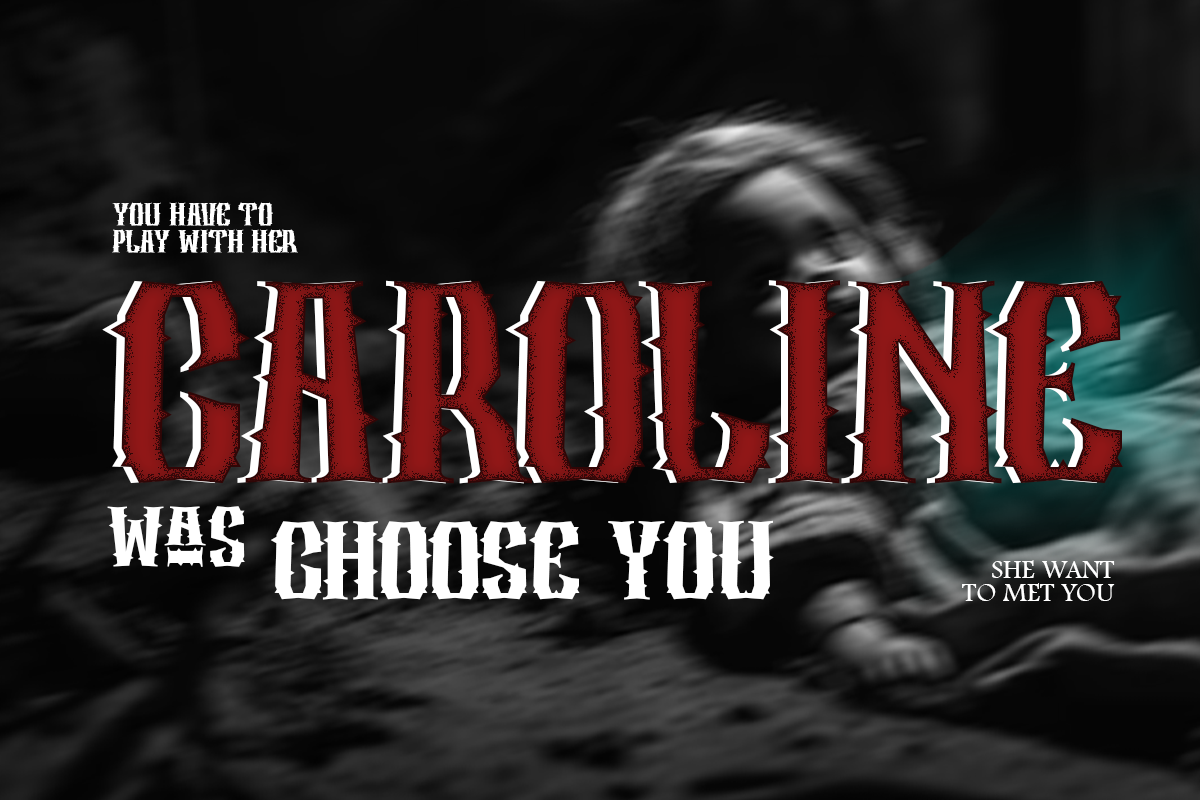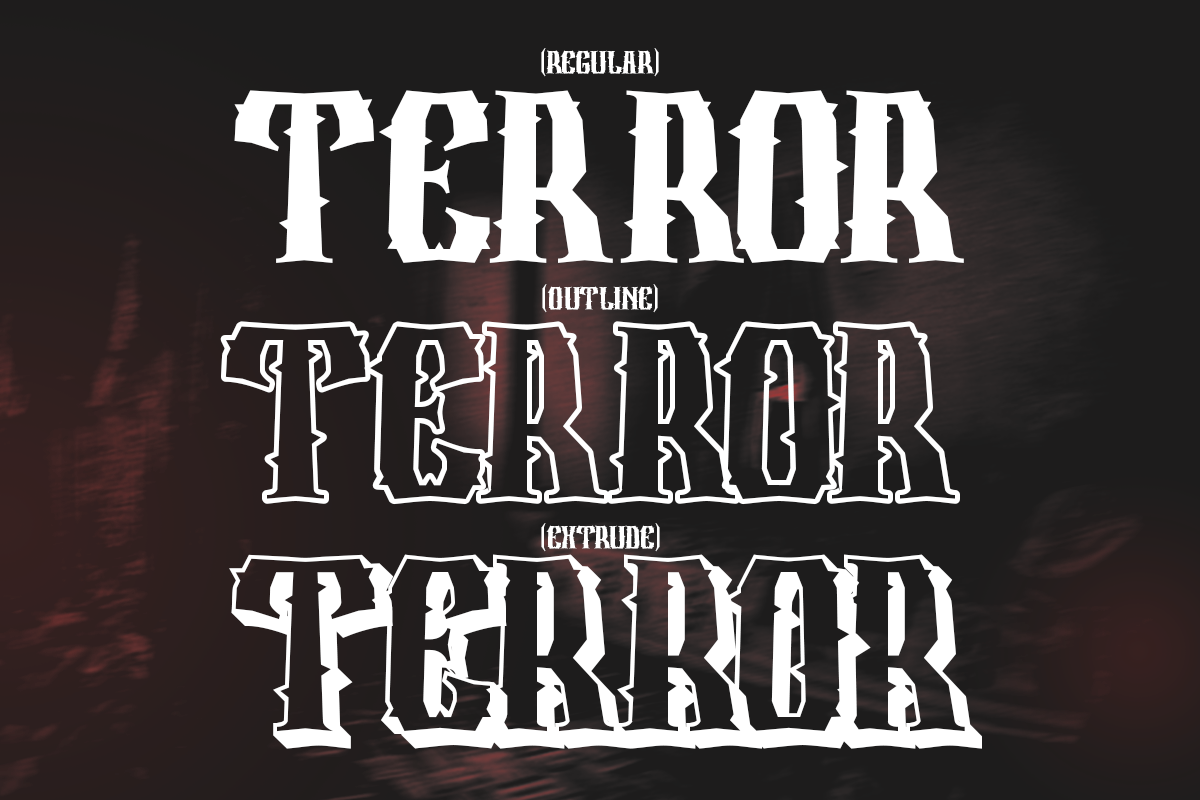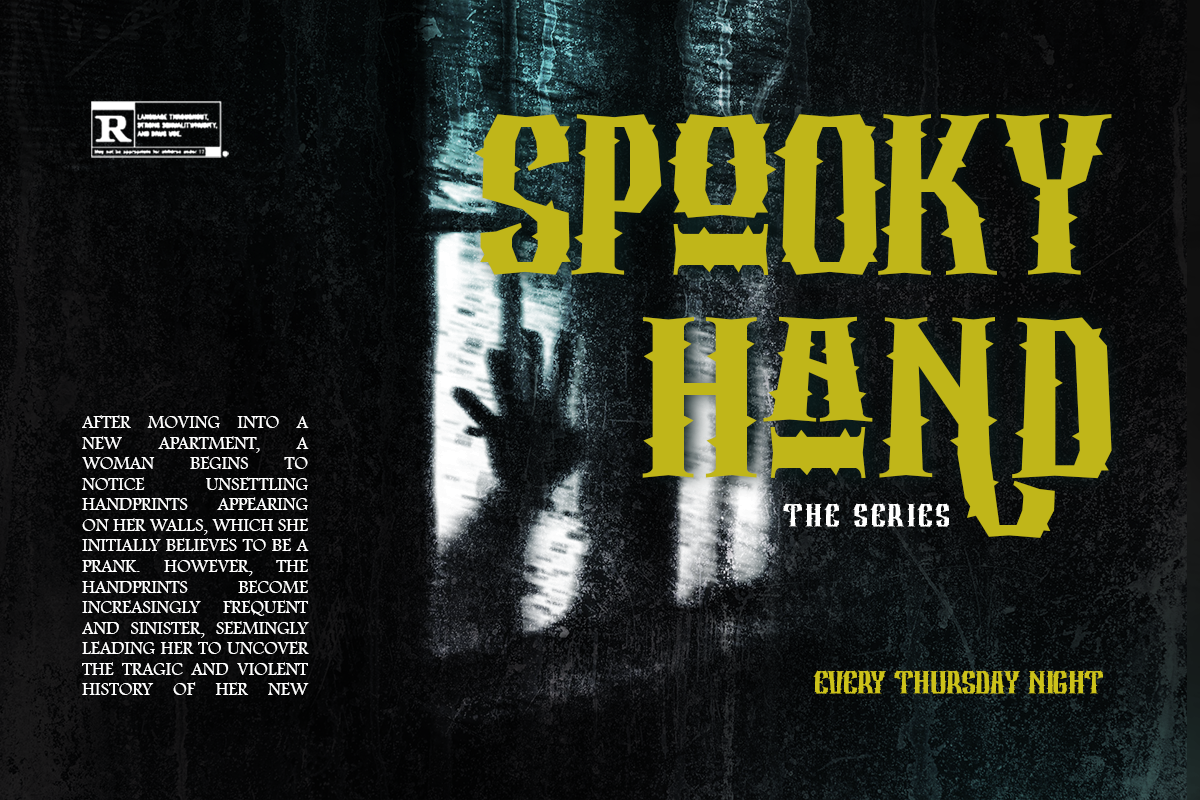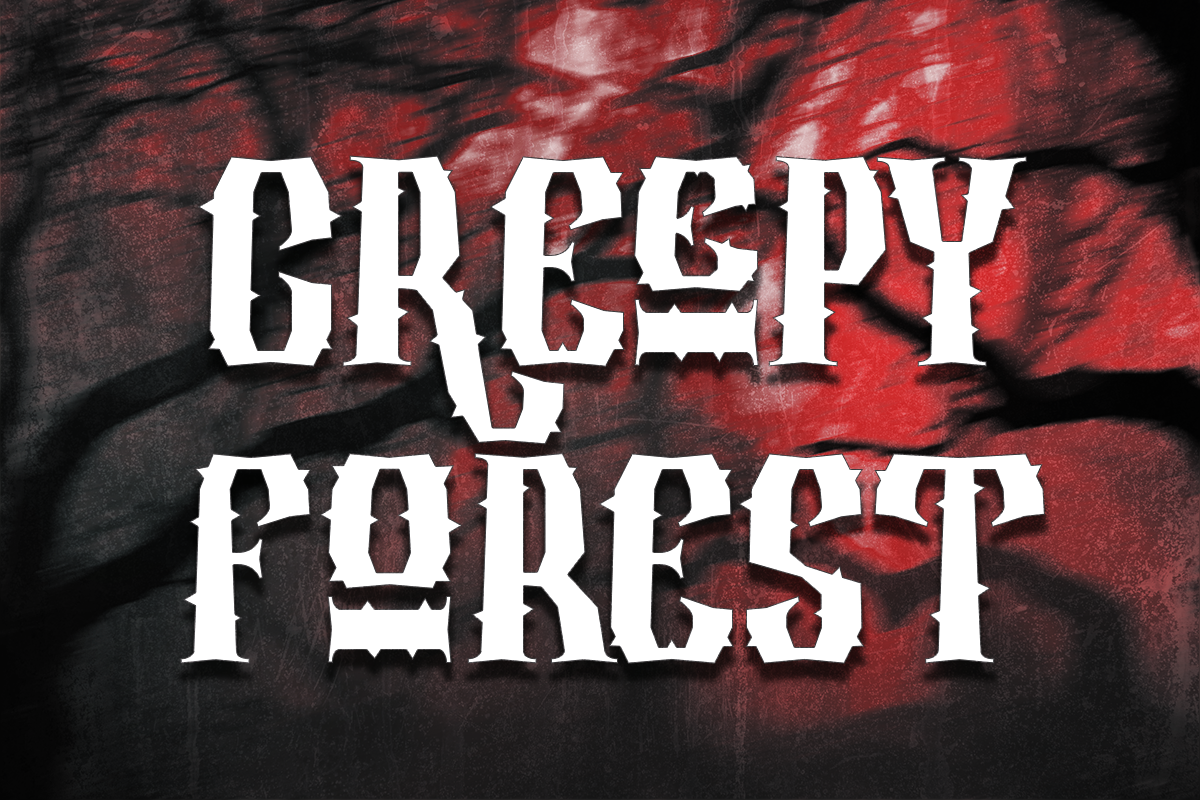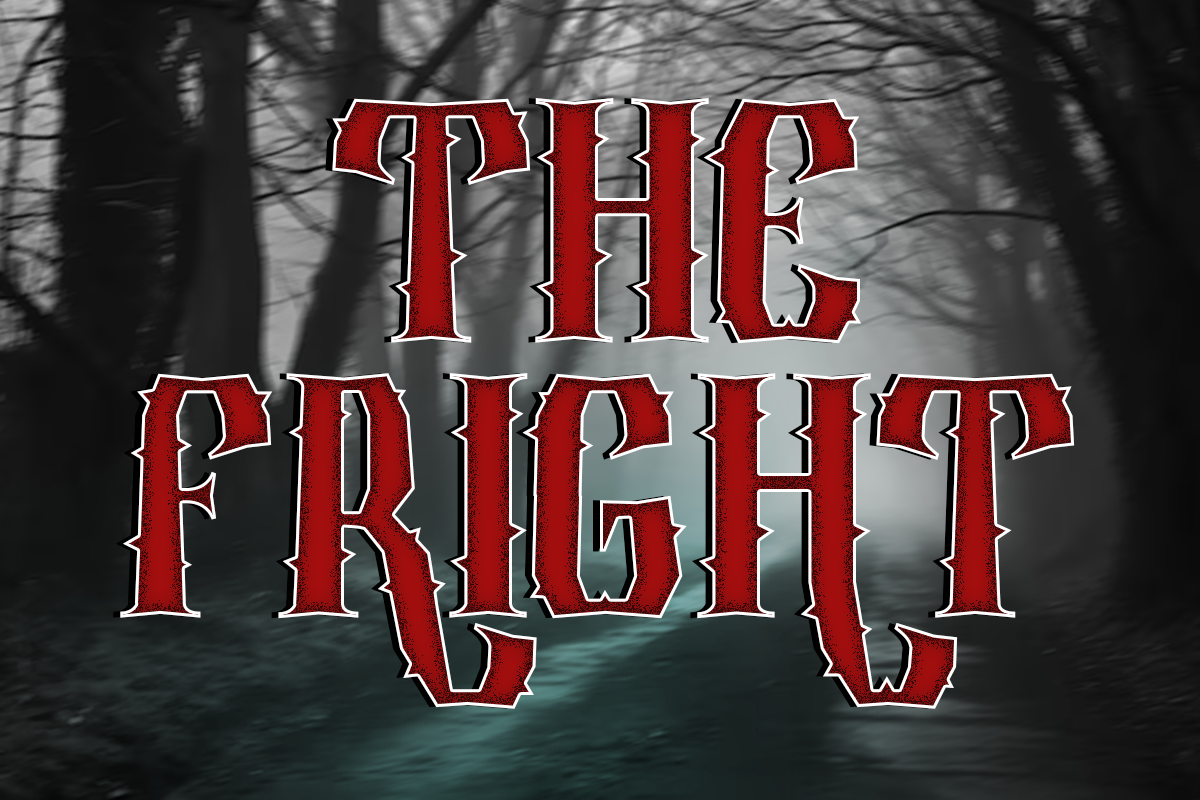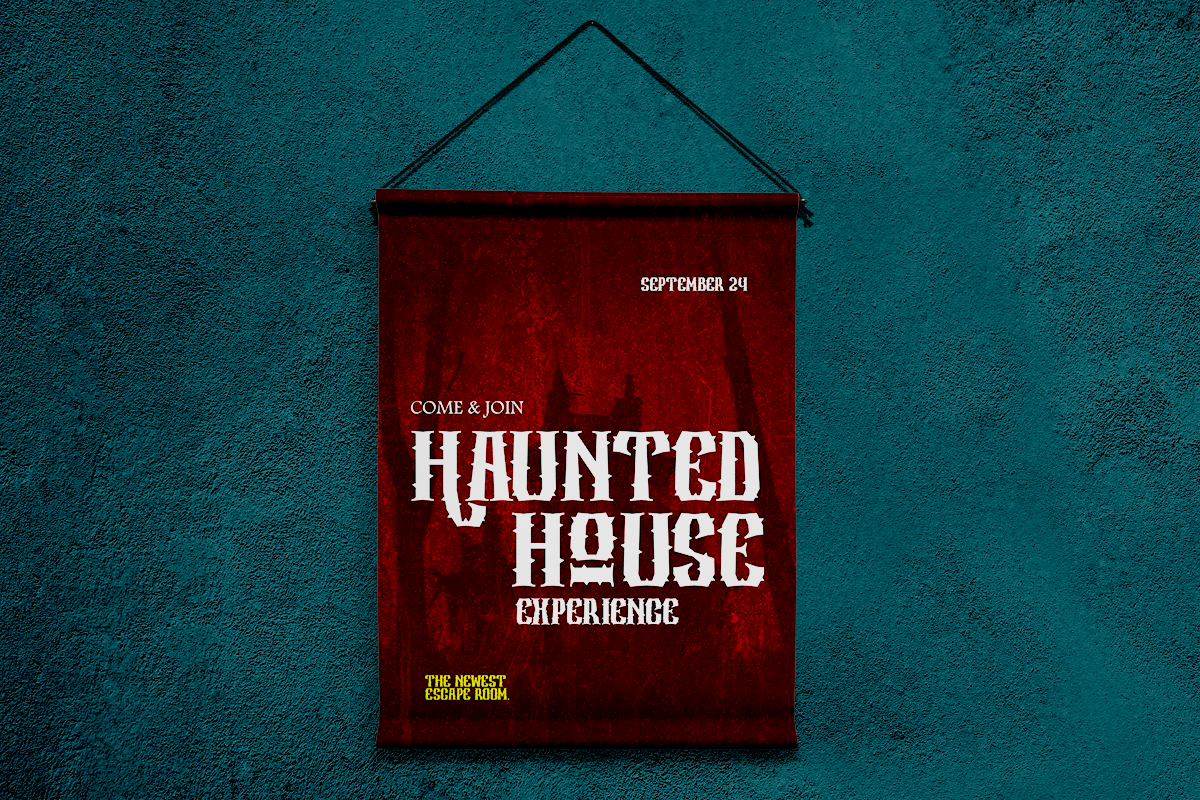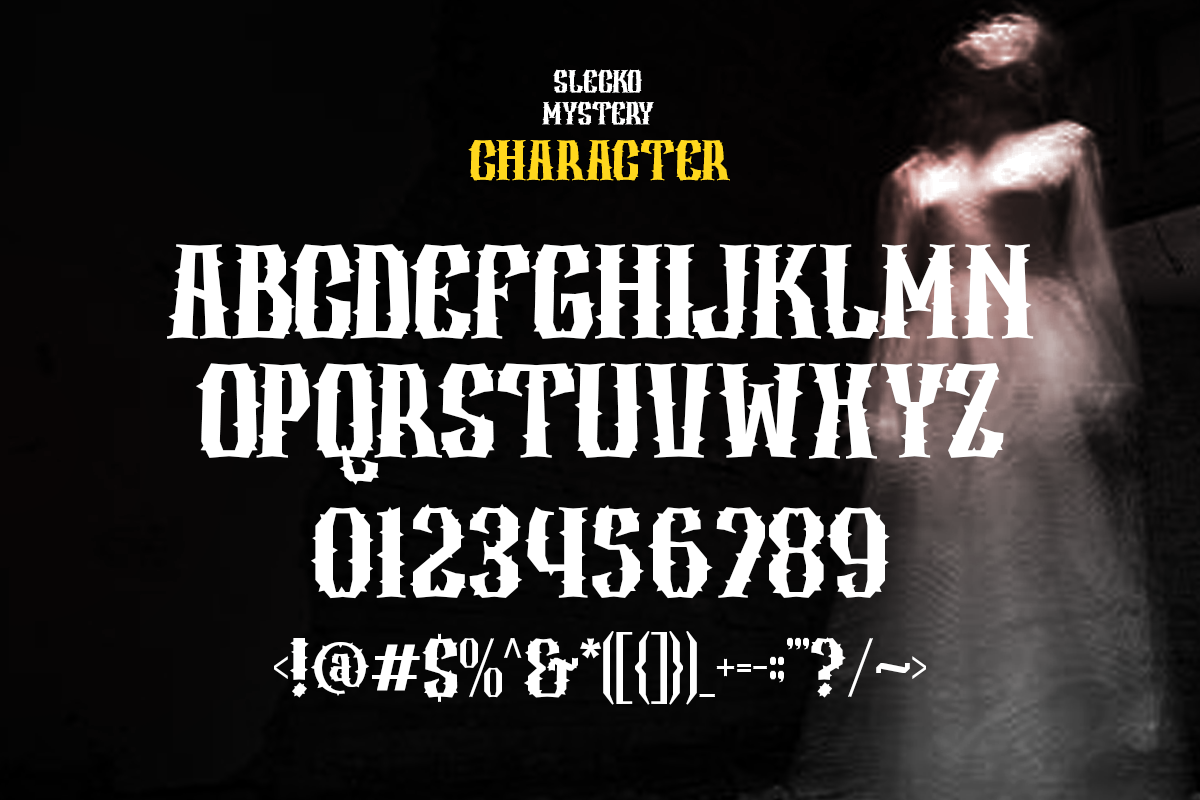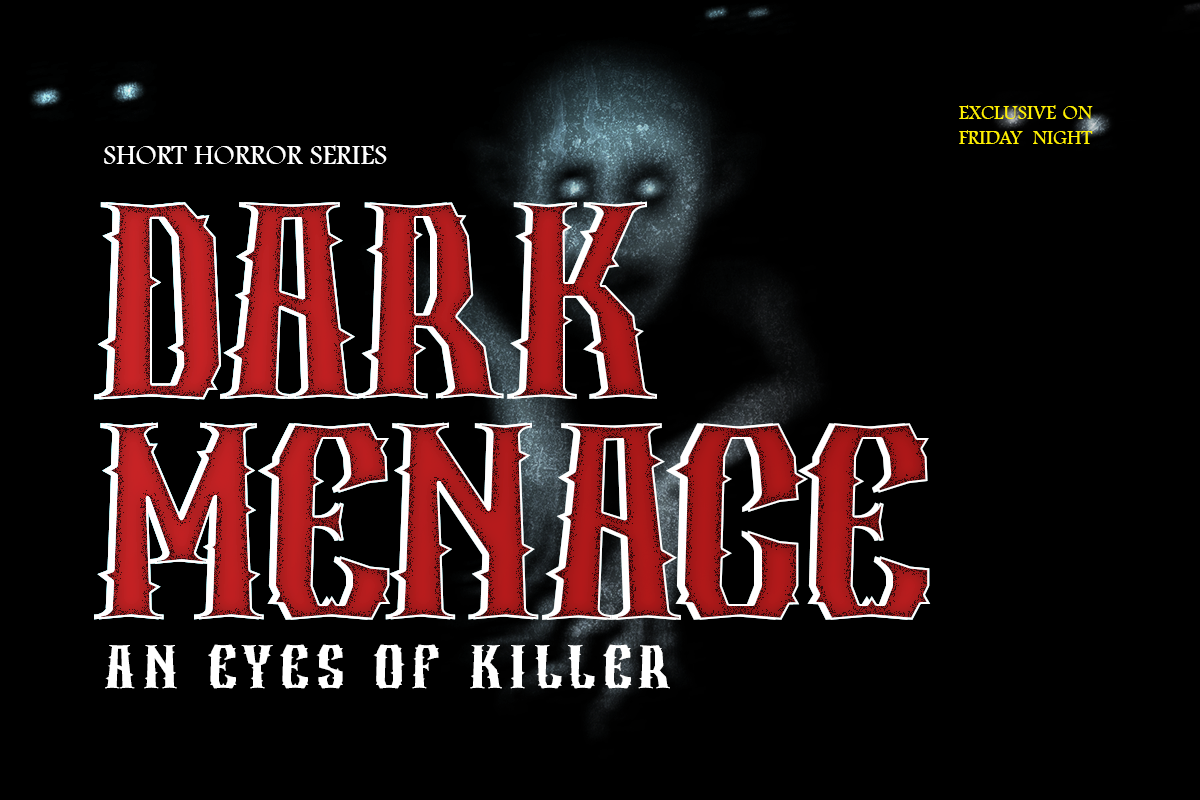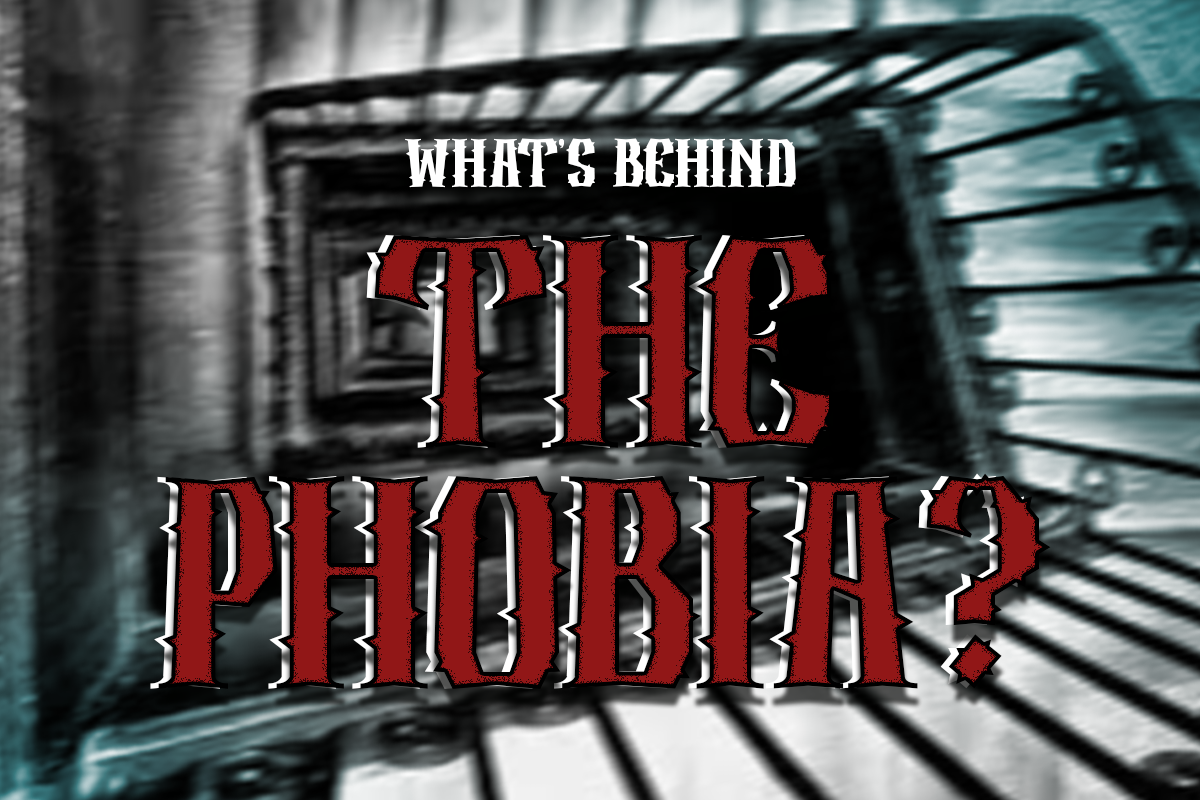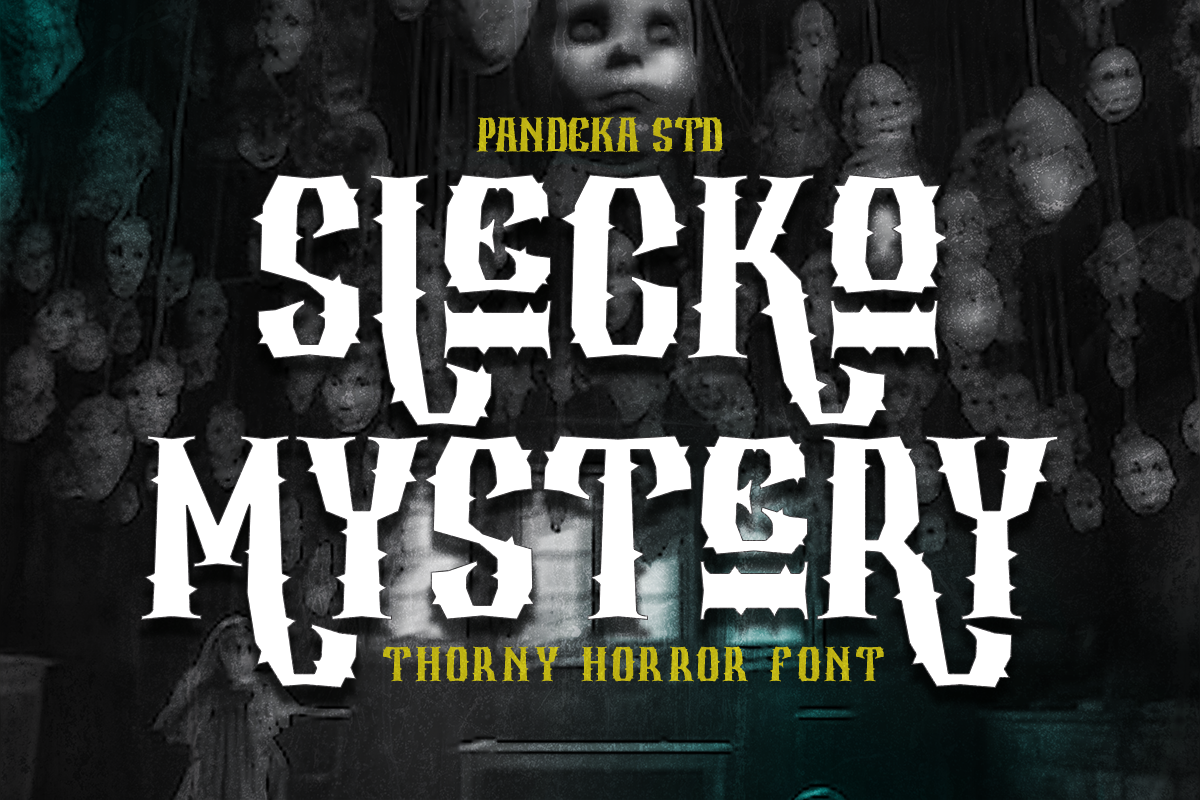
Slecko Mystery - Spooky Horror Font
Slecko Mystery - Horror Display Font
Introducing Slecko Mystery, a spine-chilling horror display font that exudes a dark and eerie vibe. Inspired by iconic movie titles and horror-themed logos, Slecko Mystery captures the essence of terror with its bold, creepy design. The font's menacing presence is further amplified by its alternate characters, which feature sinister curves at the beginning and end of each letter, adding a unique touch to your horror-themed projects..
Slecko Mystery comes in three distinct styles: Regular, Extrude, and Outline, giving you the flexibility to craft the perfect horror aesthetic. The Regular style delivers the classic horror vibe, the Extrude style adds depth and dimension, and the Outline style provides a sharp, ghostly edge to your text.
- Regular, Extrude and Outline
- Unique letterforms